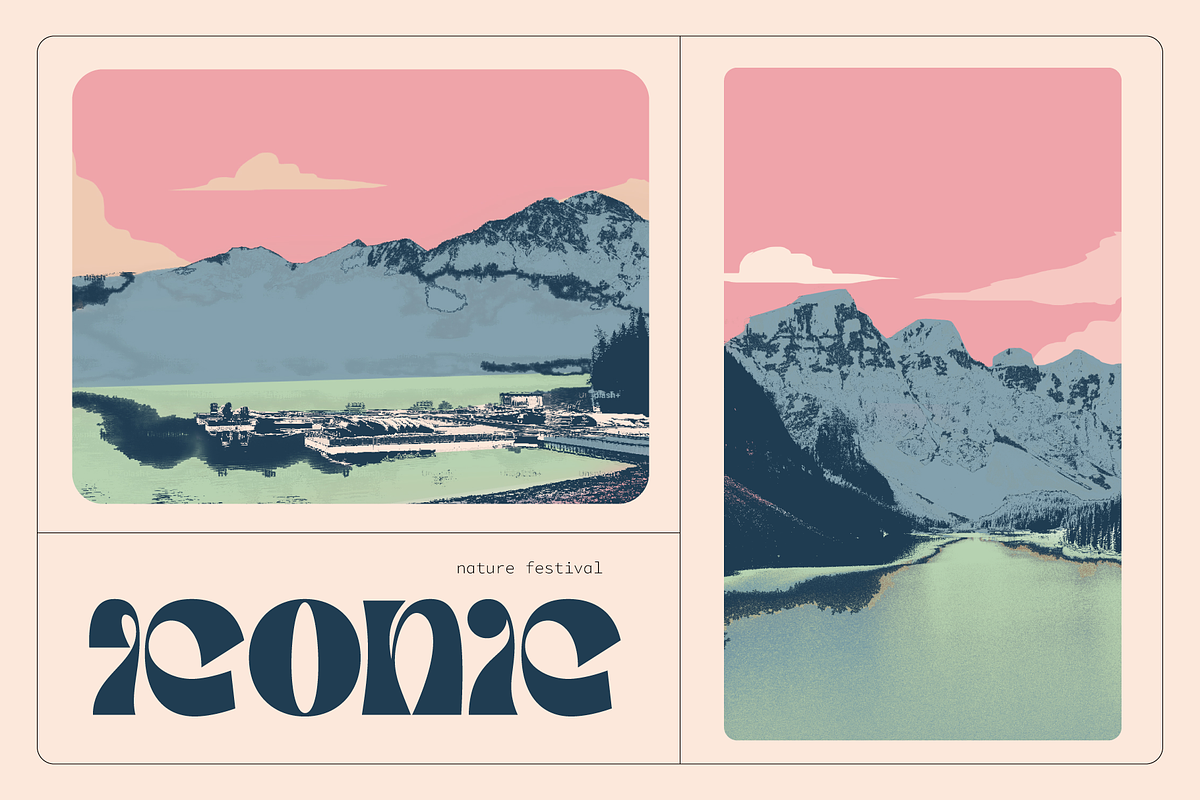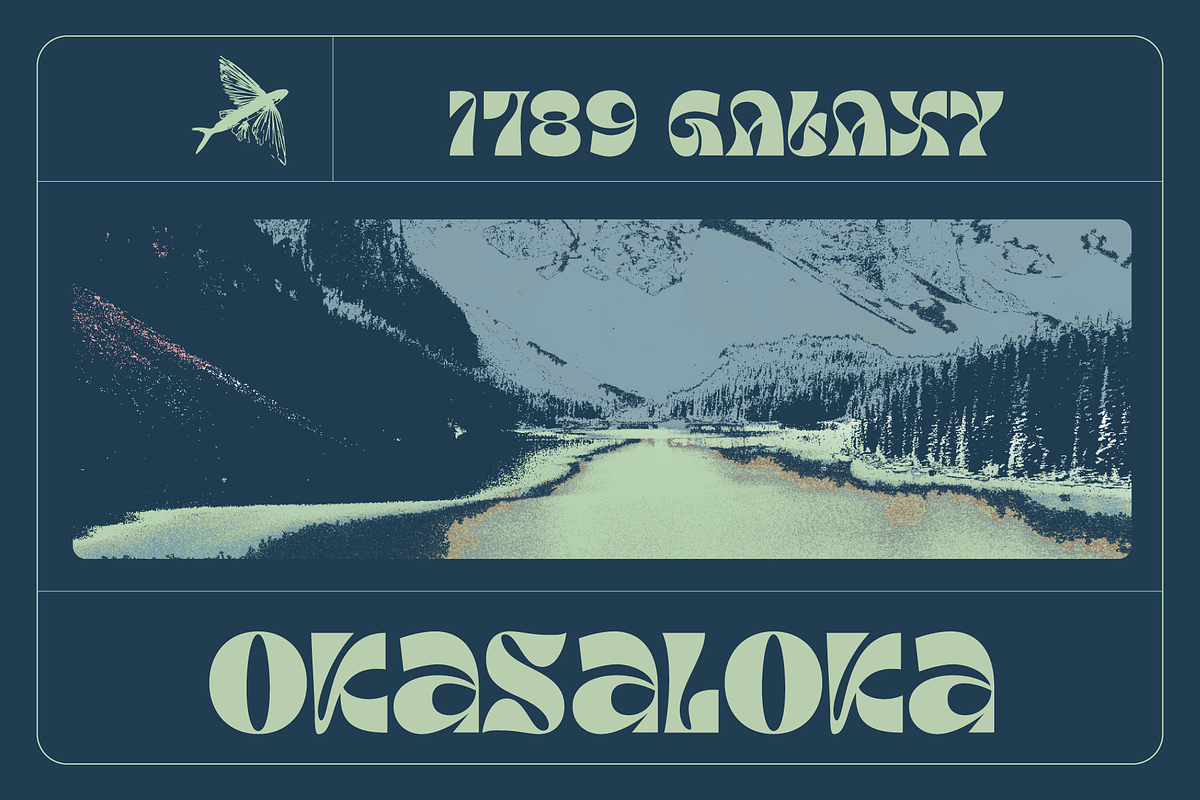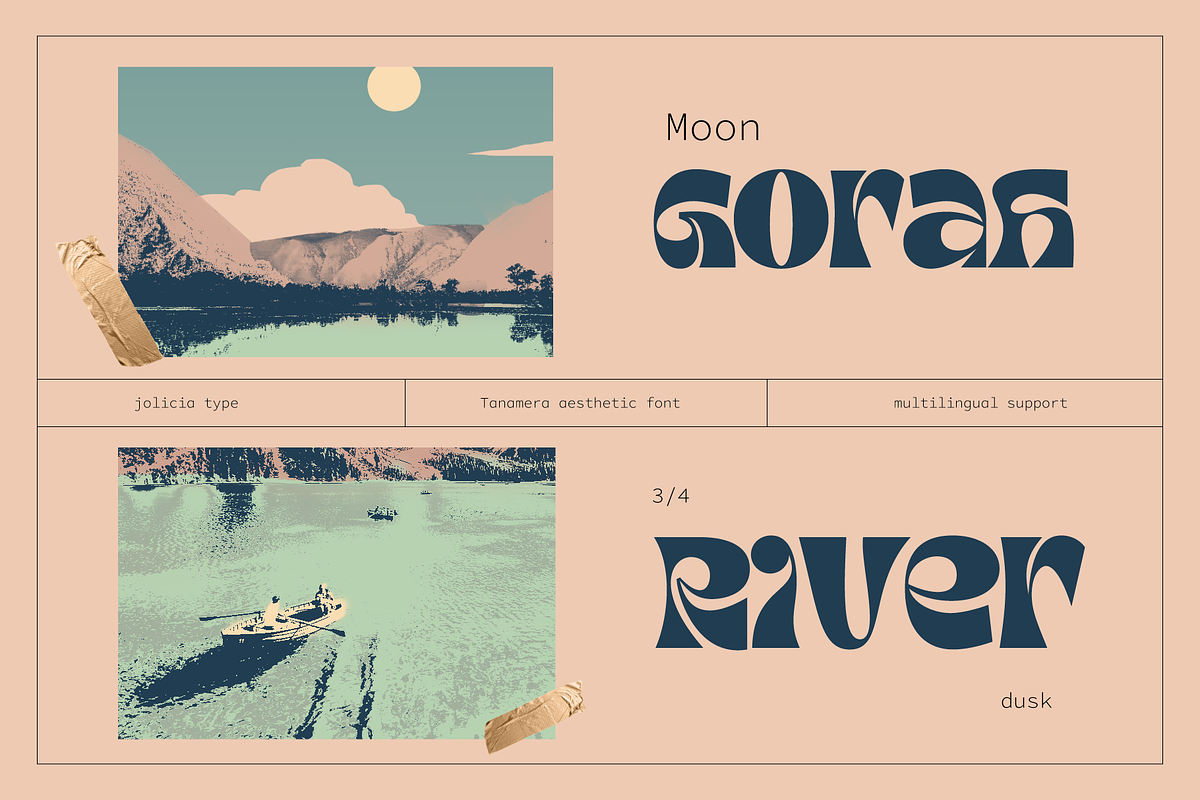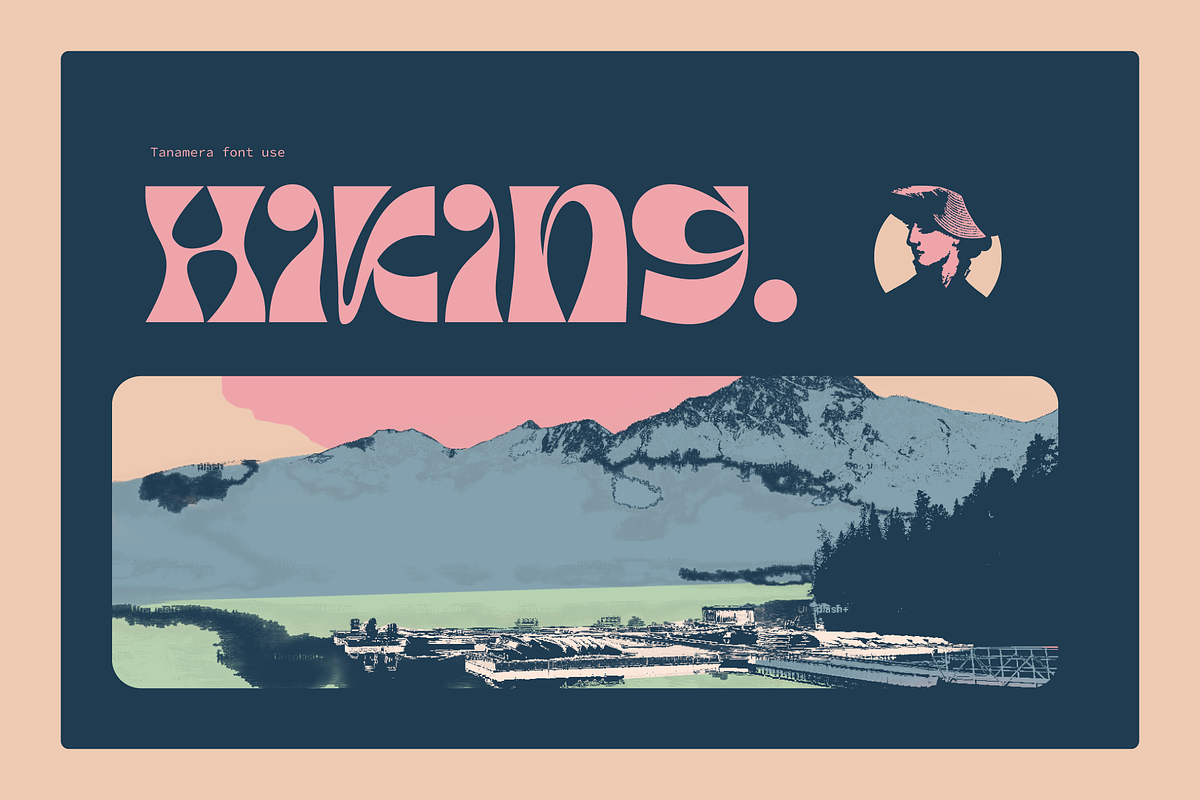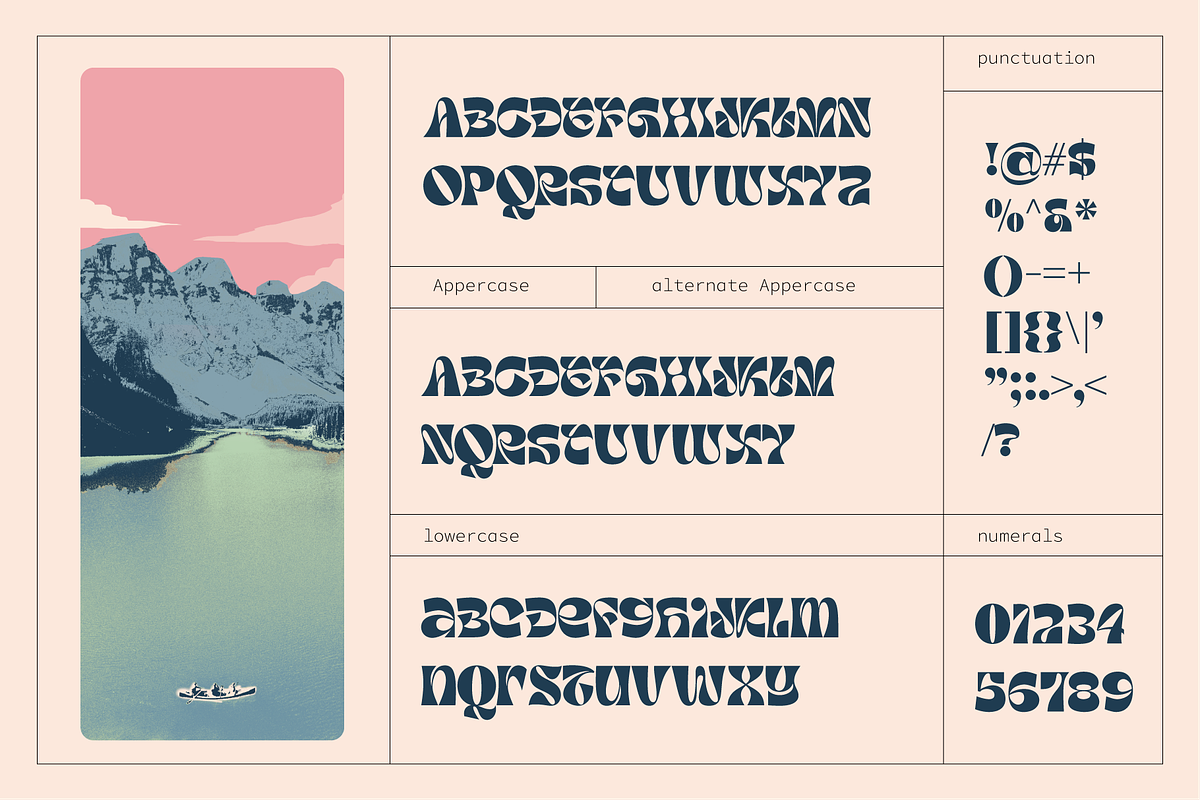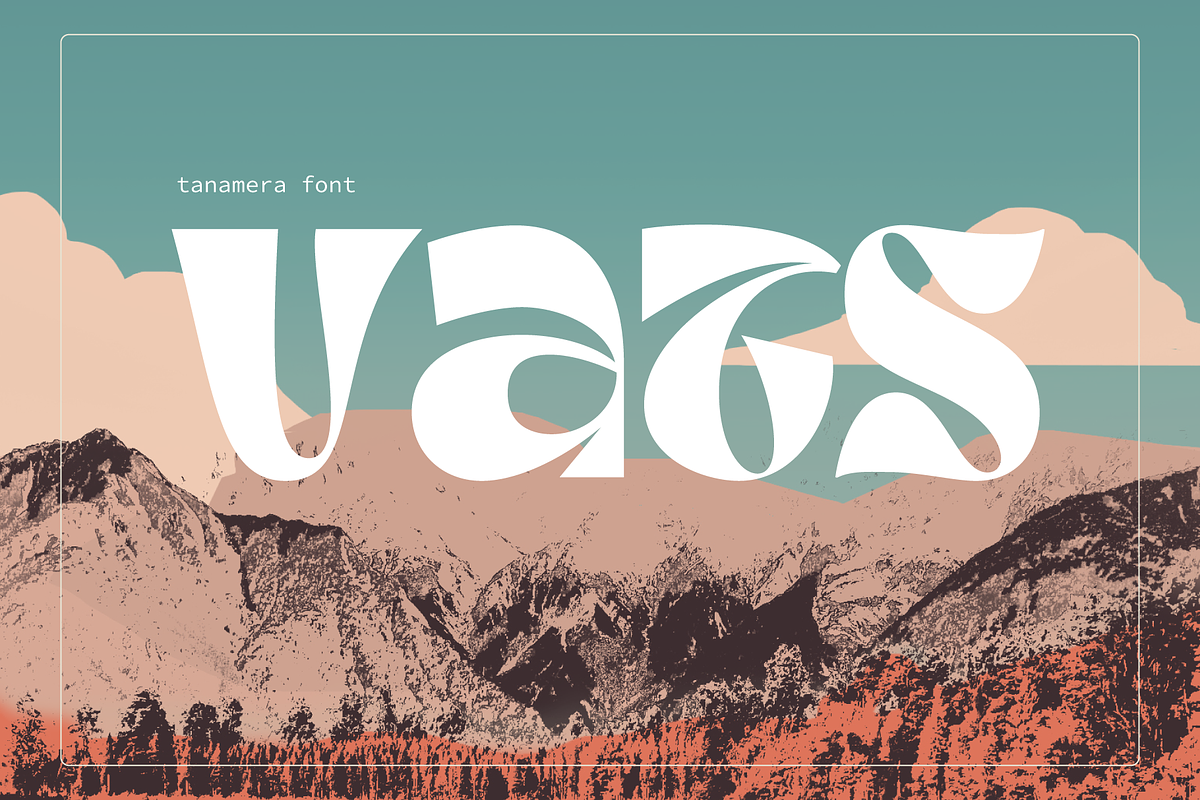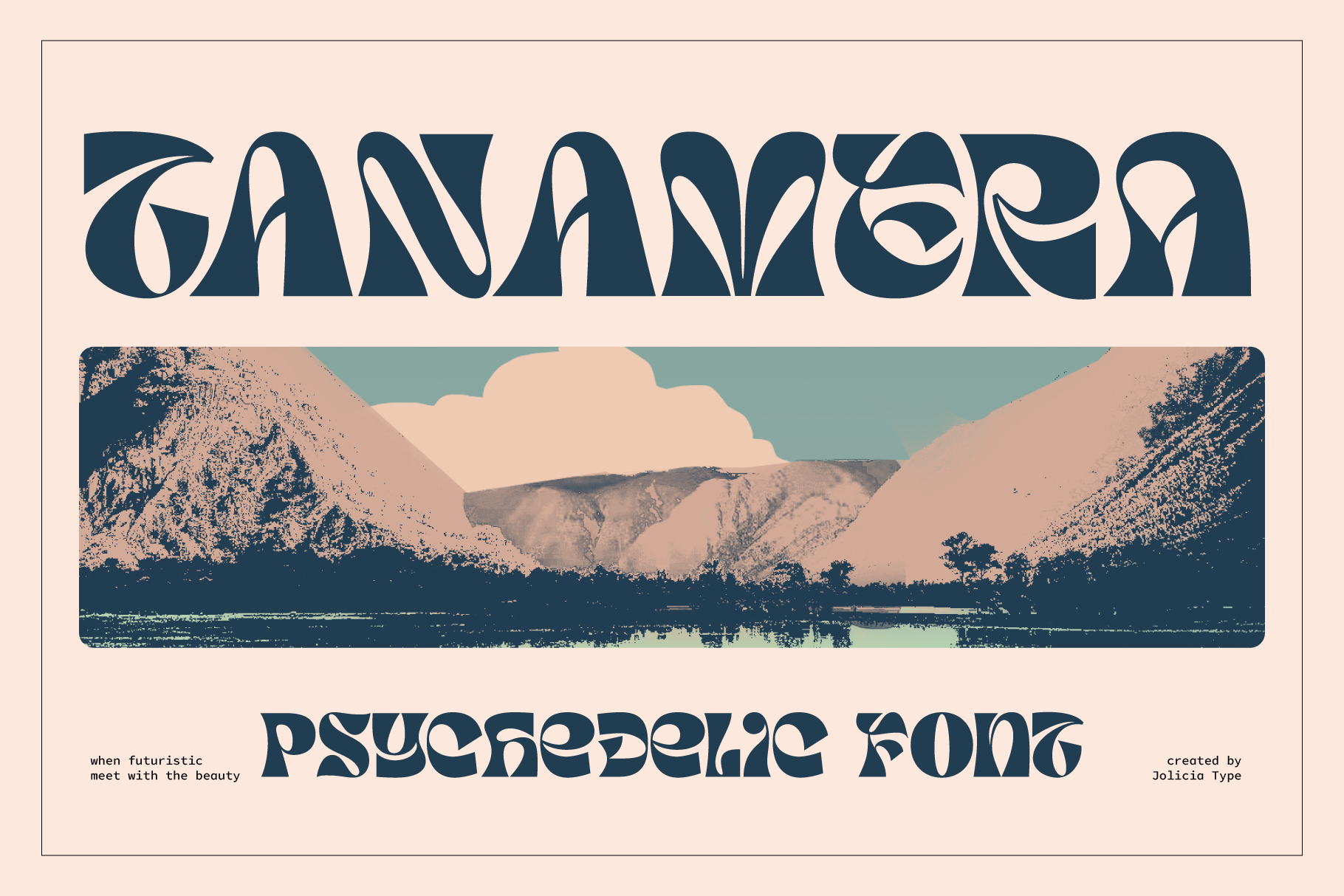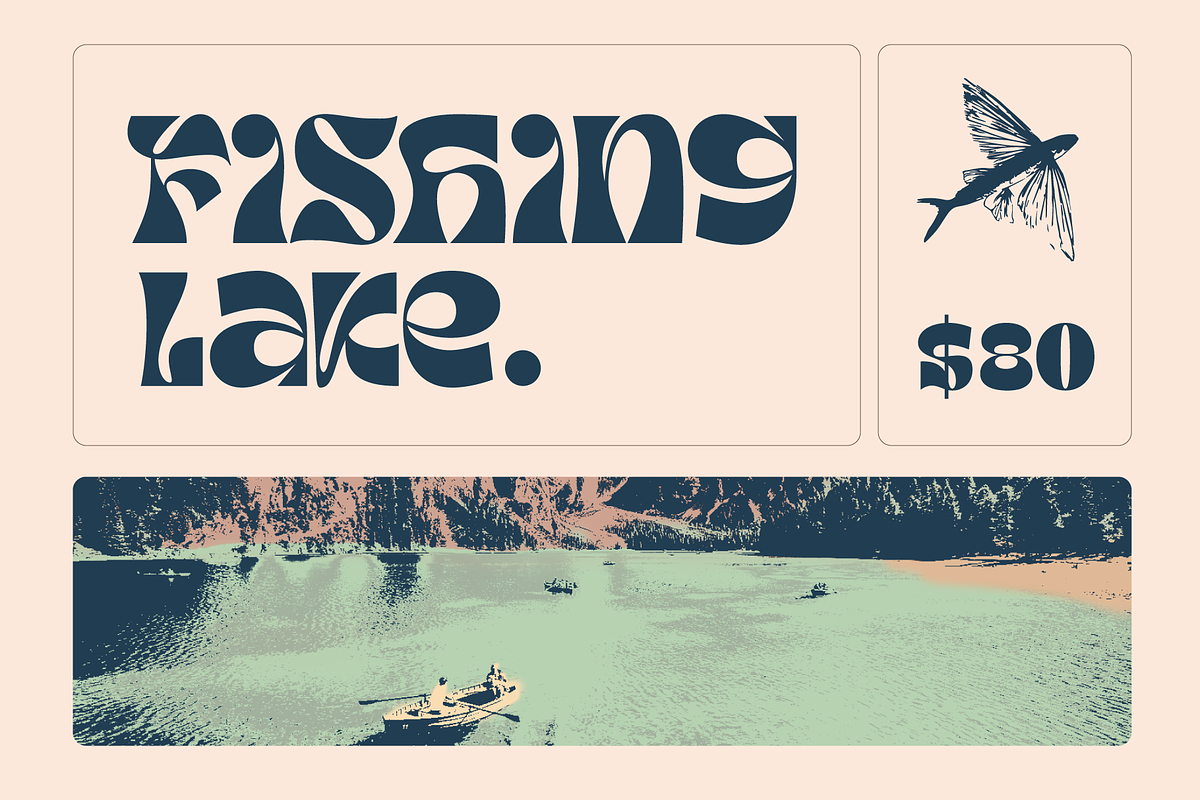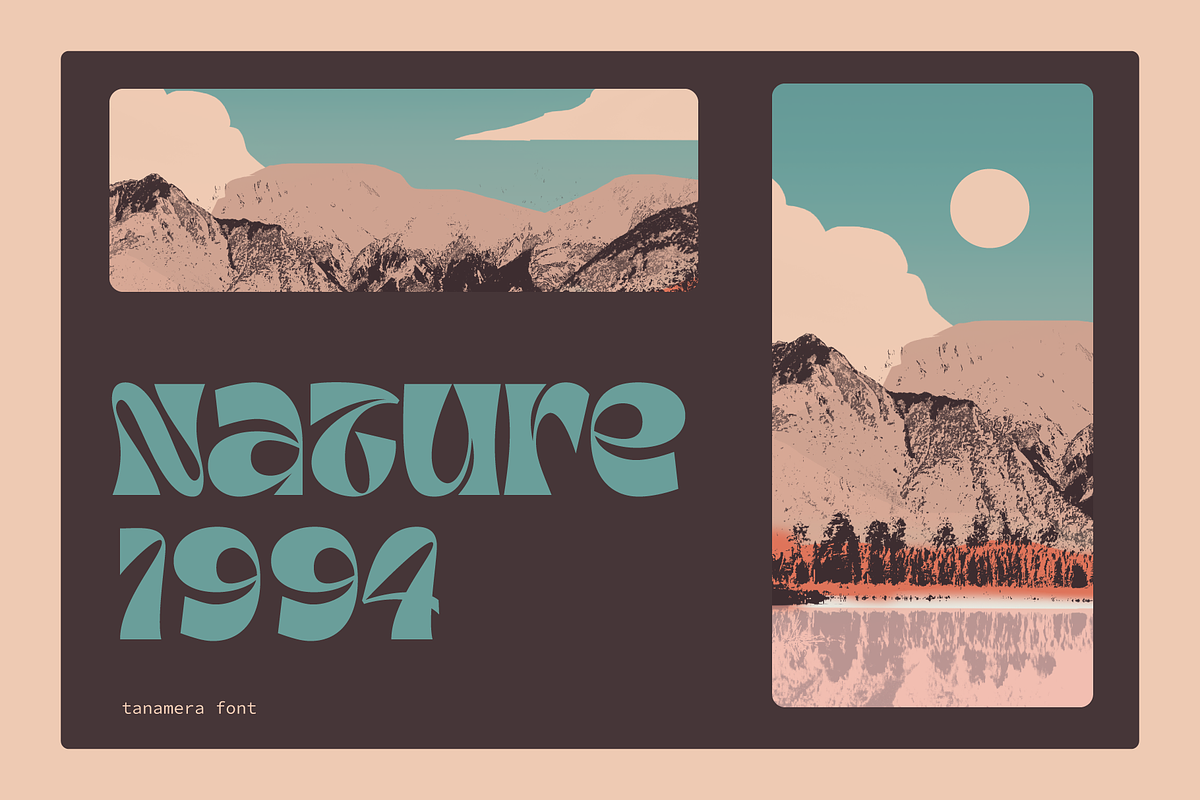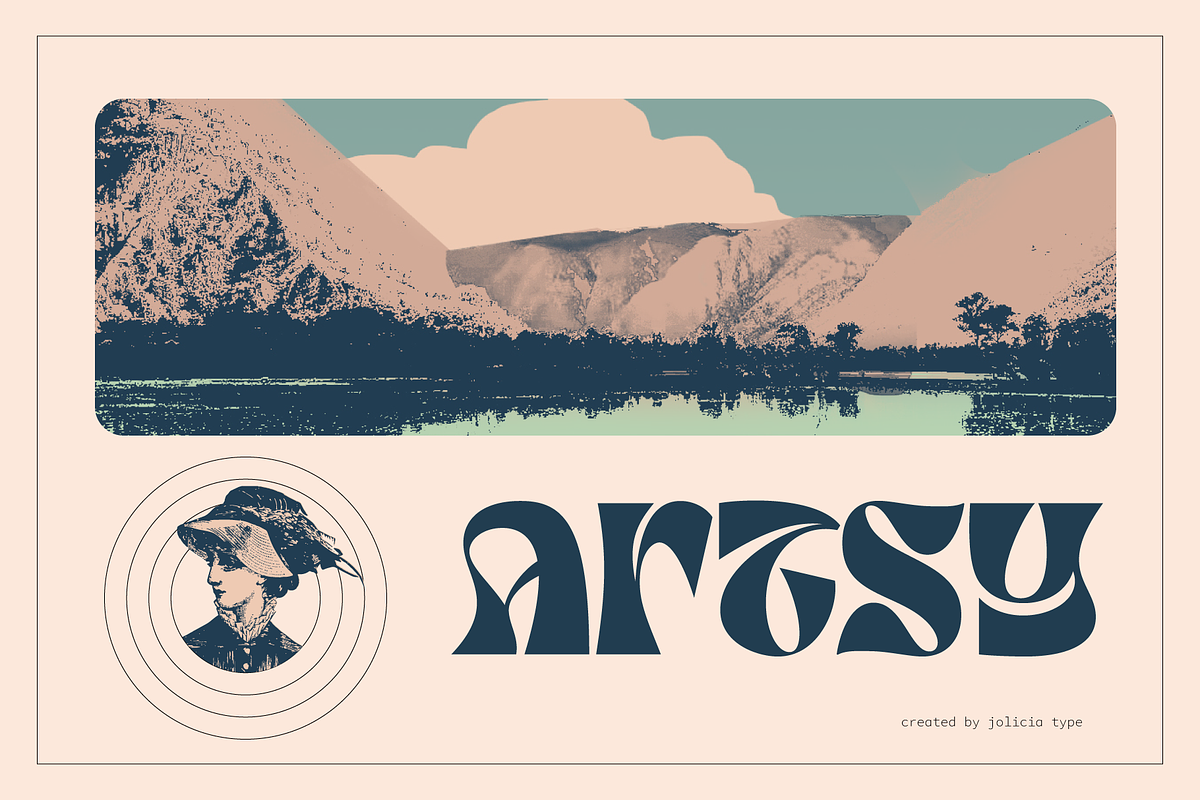
TANAMERA | Psychedelic Font
Introducing Tanamera: Your Portal to Psychedelic Nostalgia
Unleash the vibrant energy of the '60s and '70s with Tanamera, the ultimate psychedelic type display font that channels the essence of retro vintage style. Whether you're designing a groovy poster, an album cover, or revamping your branding, Tanamera is your ticket to a kaleidoscopic journey through time.
- Psychedelic Vibes: Tanamera captures the essence of a bygone era, where peace, love, and creativity reigned. Its mesmerizing swirls and curves will transport you to the heart of the psychedelic revolution.
- Vintage Aesthetic: With carefully crafted glyphs that pay homage to the fonts of the past, Tanamera adds an authentic touch of nostalgia to your projects, effortlessly embodying the essence of the retro era.
- Endless Customization: Tanamera comes with a variety of alternates and ligatures, providing you with endless possibilities to create unique and eye-catching typography that stands out from the crowd.
- Versatile Usage: Whether you're designing for print or digital media, Tanamera adapts seamlessly to various applications, from posters, branding, and advertising, to websites and social media.
- High-Quality Craftsmanship: Crafted with precision and attention to detail, Tanamera is a high-quality font that ensures crisp, sharp lines and smooth curves, making it perfect for both small and large-scale projects.
Why Choose Tanamera?
Tanamera is not just a font; it's a portal to the past, a gateway to a world of vibrant colors, free-spirited expression, and boundless creativity. It's your chance to infuse your designs with the unmistakable energy and style of the psychedelic era, creating a visual experience that captivates and enchants your audience.